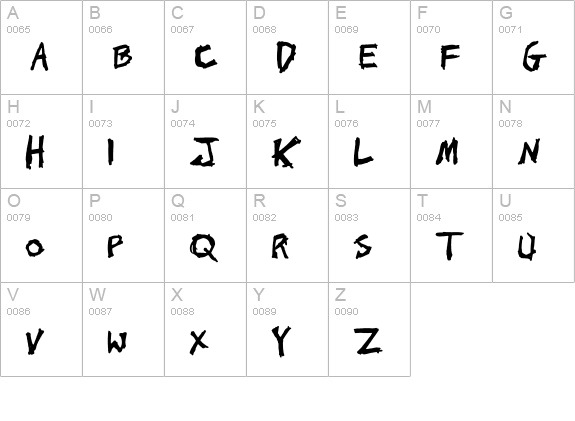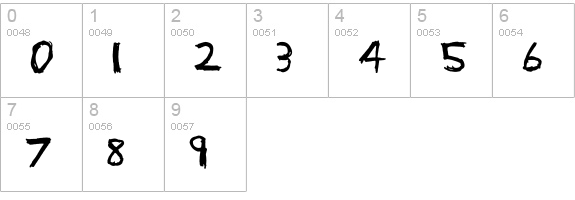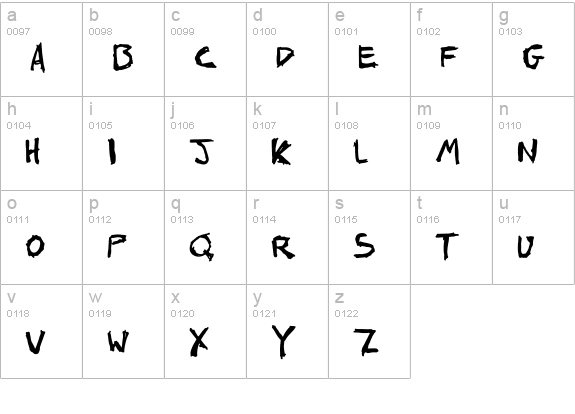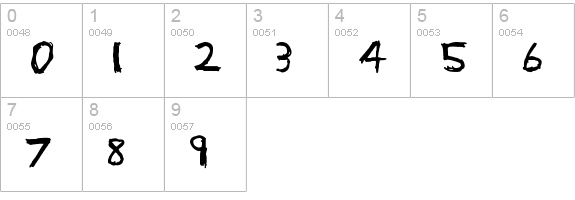
John's 1000 Hurts Font Details
John's 1000 Hurts font is a striking and powerful typeface that conveys a sense of intensity and impact. With its sharp angles and bold letterforms, this font is perfect for conveying strong messages and making a bold statement. Whether you're designing a poster, logo, or any other creative project, John's 1000 Hurts will surely leave a lasting impression. The best part? John's 1000 Hurts font is available for free download at FontsMarket.com. This means you can easily access this unique and eye-catching font to elevate your designs without any cost. Don't miss out on this opportunity to add a touch of edge and character to your projects with John's 1000 Hurts font. Download it today and unleash the power of this impactful typeface in your designs.